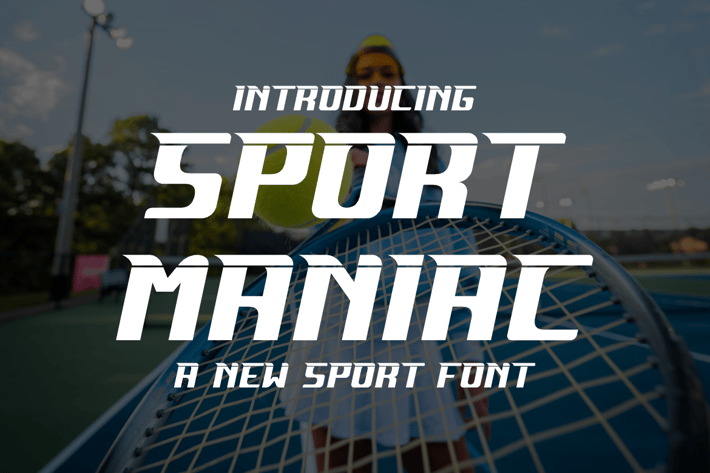
Sport Maniac - Sport & Athletic Font
Sport Maniac Font is unique . Ready to use for your design like labeling, movie sceen, poster, movie title, gigs, album covers, logos, and much more.